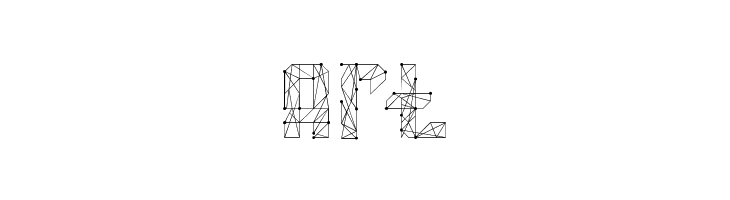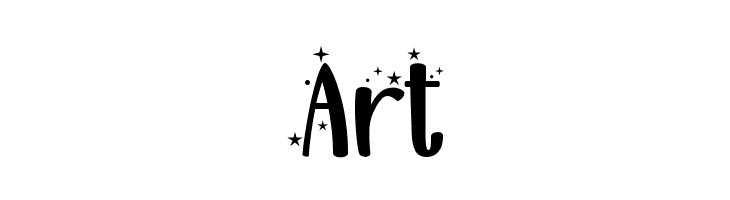
An elegant script font with decorative swashes and smooth, connected lowercase letters.
A bold, cursive font with a vintage and elegant style.
A fluid and elegant script font with a handwritten style.
An elegant script font with flowing, cursive style and intricate loops.
A playful, flowing script font with smooth, connected strokes.
An elegant script font with flowing, cursive letters and decorative swashes.
A decorative font with elegant swirls and loops, perfect for creative projects.
An elegant script font with ornate uppercase and smooth cursive lowercase letters.
A cursive, flowing font with elegant, sweeping lines and artistic flair.
A playful, bold handwritten font with smooth curves and rounded edges.
A modern, condensed font with elongated, narrow letters and uniform stroke widths.
A bold, angular script font with a modern, edgy style.
A bold, flowing script font with elegant, cursive letterforms.
An expressive and fluid handwritten font with elegant cursive strokes.
A tall, narrow, and modern font with thin strokes and a sleek appearance.
A bold, graffiti-inspired font with angular, hand-drawn strokes.
A tall, narrow, and angular font with a modern, geometric style.
A bold, cursive font with elegant, flowing curves and high contrast.
An elegant script font with flowing, interconnected letters and intricate swashes.
A bold, decorative font with a modern vintage flair, perfect for creative projects.
A jagged, irregular font perfect for spooky, Halloween-themed designs.
A dynamic and elegant script font with fluid, connected strokes.
A flowing, cursive font with elegant, sweeping strokes and a romantic appearance.
An elegant, flowing script font with graceful curves and loops.
A bold, flowing script font with elegant, modern elements.
A bold, flowing script font with a handwritten style.
An elegant font with modern and vintage elements, featuring decorative serifs and smooth curves.
A bold, decorative font with intricate serifs and flourishes.
A playful, snowflake-adorned font perfect for festive and cheerful designs.
An elegant script font with flowing, ornate cursive letters and intricate flourishes.
A bold, rounded font with a playful and modern style.
A graceful script font with elegant loops and swirls, perfect for romantic designs.
An elegant script font with high contrast and decorative swashes.
A whimsical, decorative font with playful loops and curls.